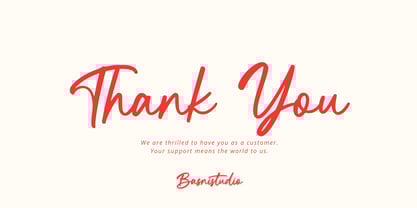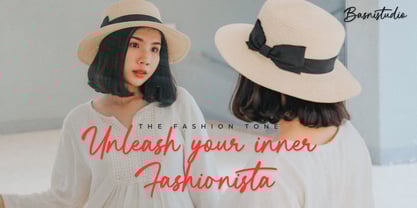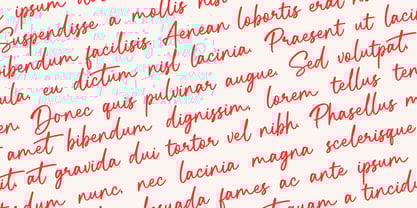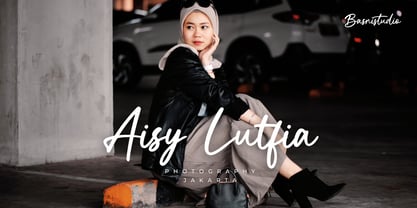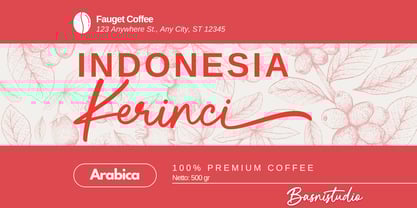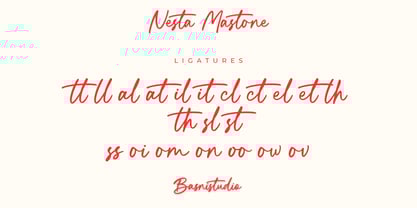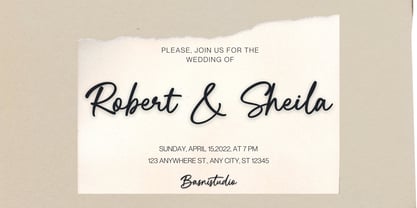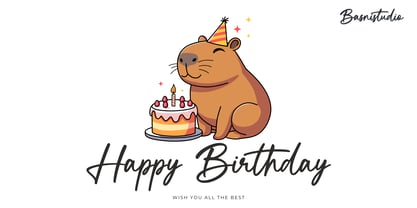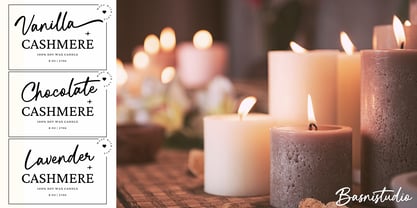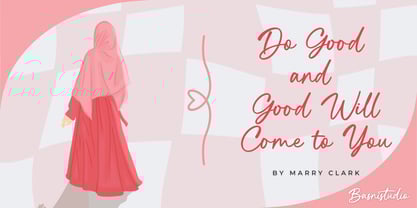
Nesta Mastone
The Nesta Mastone Font Family was designed by Bery Arisandi and published by Basnistudio. Nesta Mastone contains 1 styles.
The Perfect Handwritten Touch for Your Designs Introducing Nesta Mastone a Handwritten Font that adds a elegant, versatile touch to everything from branding and social media to invitations and packaging. Elegant & Versatile – Perfect for logos, quotes, greeting cards, and more Authentic Handwritten Feel – Created with real pen strokes for a natural look Easy to Use – Works seamlessly with all major design programs Whether you’re building a powerful brand identity or crafting a standout logo, Nesta Mastone a Handwritten Font gives you the creative edge you need. Thank You Very Much
Nesta Mastone